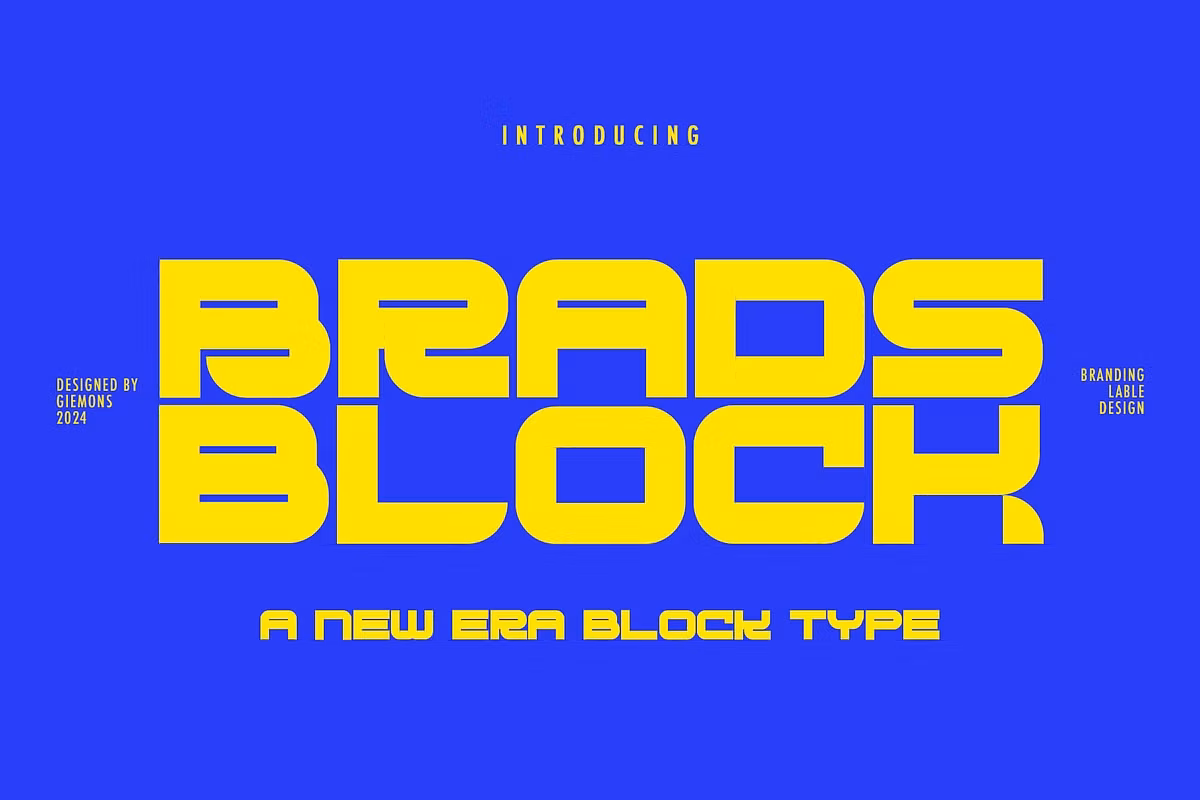
Brads Block Font Free Download is a bold and impactful display typeface designed for projects that require strong visibility and attention. With its thick, block-style letterforms, this font is perfect for headlines, logos, posters, product packaging, and other creative works where you need to make a statement.
Brads Block Font Free Download combines geometric precision with a clean, modern look, making it ideal for both digital and print projects where clarity and boldness are essential.